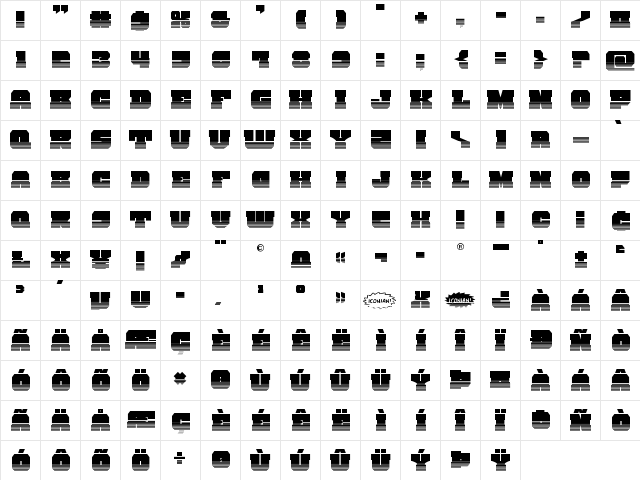
Kittrick Halftone Regular
Kittrick Halftone is a composed and adaptable typeface that performs quietly and consistently across a wide range of design contexts.